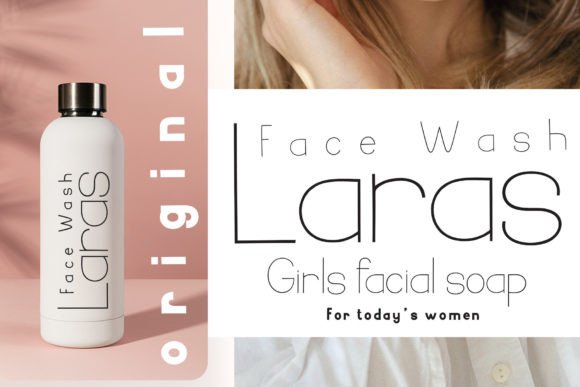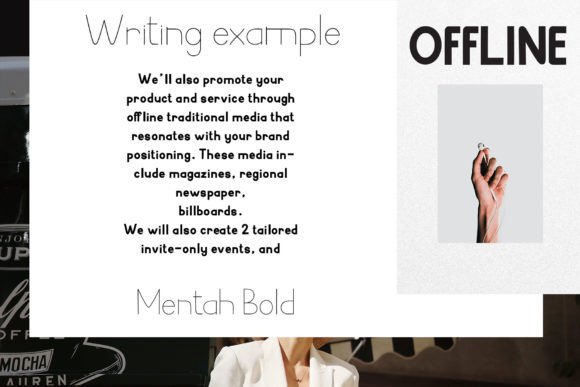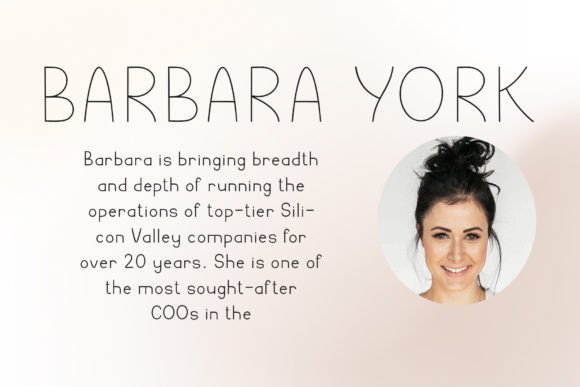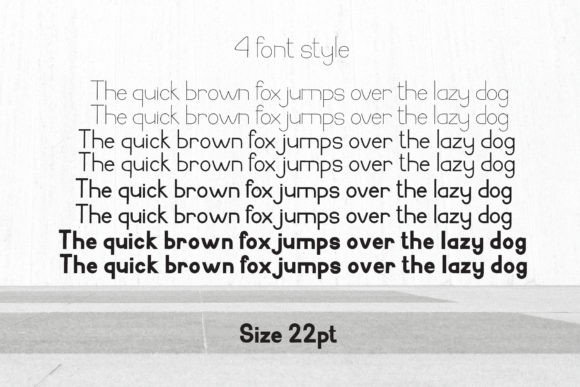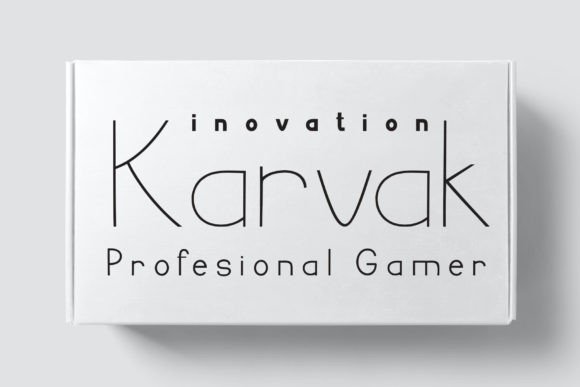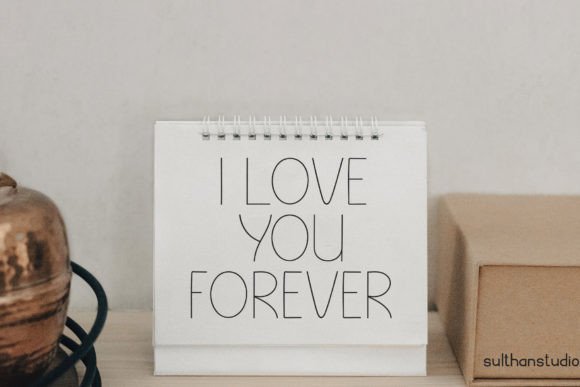
Introduction to Mentah Font
Have you ever stared at a blank canvas, struggling to find the perfect font to bring your creative project to life? For designers, this is a familiar pain point. The right font can make all the difference in conveying your message and elevating your work.
That’s why we’re excited to introduce the Mentah Font, a sleek and modern sans-serif font that’s perfect for any design project. Born from the lines of our Rajin font, Mentah has evolved into a unique and powerful style that’s ideal for smooth and bold writing.
With its minimalist aesthetic and high-quality design, the Mentah Font is a valuable resource for designers looking to add a touch of sophistication to their work. Whether you’re working on a free download or a commercial project, this font is sure to impress.
Key Features of Mentah Font
- Unique, hand-drawn style with a transparent background, ideal for overlaying on images.
- Supports a wide range of languages, making it a versatile design resource for global creative projects.
- Perfect for designers and artists looking for a unique, high-quality font to enhance their designs.
Honest Review: Mentah Font
I recently stumbled upon the Mentah Font while searching for a design resource for a creative project. As a designer, I’m always on the lookout for high-quality fonts that can elevate my work. In this review, I’ll share my honest thoughts on the Mentah Font.
What works well: ✨ The Mentah Font has a unique and modern design that’s perfect for digital applications. It’s available for free download, which is a huge plus. The font also features a transparent background, making it easy to layer and style. Additionally, the high quality of the font ensures that it renders well on various devices.
Some limitations: ⚠️ While the Mentah Font is great for digital projects, it may not be the best choice for print materials. The font’s design is quite bold, which can be overwhelming in large quantities. Additionally, the font’s weight and style options are limited, which may not be suitable for complex design projects.
Overall, the Mentah Font is a great addition to any designer’s toolkit. Its unique design and high quality make it an excellent choice for digital creative projects. However, designers should be aware of its limitations and use it judiciously.
Pros:
- Unique and modern design
- High quality
Cons:
- Limited weight and style options
- Not suitable for print materials
Mentah Font
Mentah Font is a unique and versatile design resource ideal for creative projects that require a high-quality, distinctive look. With its transparent background, this font is perfect for overlaying text on images or using as a standalone design element.
Tips for Getting the Most Out of Mentah Font
To maximize the effectiveness of the Mentah Font, experiment with different font sizes, colors, and arrangements to create visually appealing designs.
The Mentah Font is ideal for a variety of creative projects, including:
- Graphic design and branding
- Digital marketing and advertising
- Print design and packaging
Conclusion
With its unique design and high-quality appearance, the Mentah Font is a valuable resource for any creative project. Download it for free and start experimenting with its possibilities today.